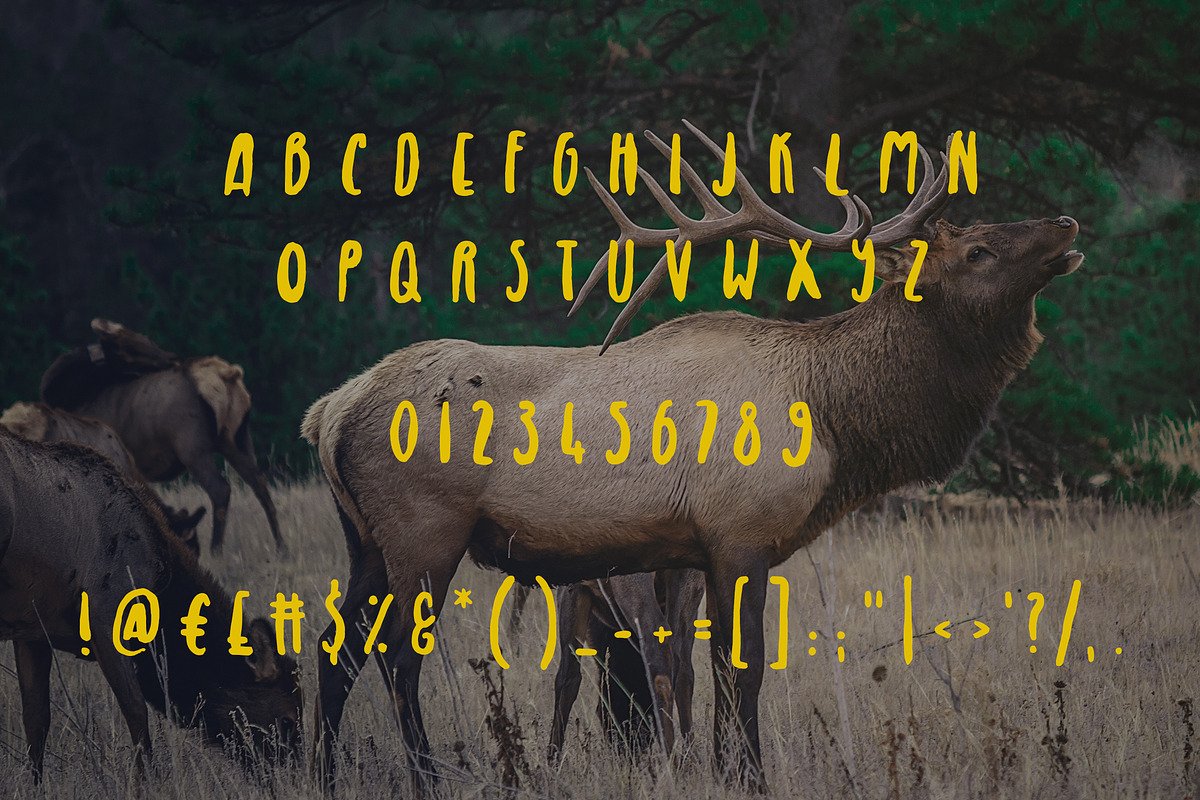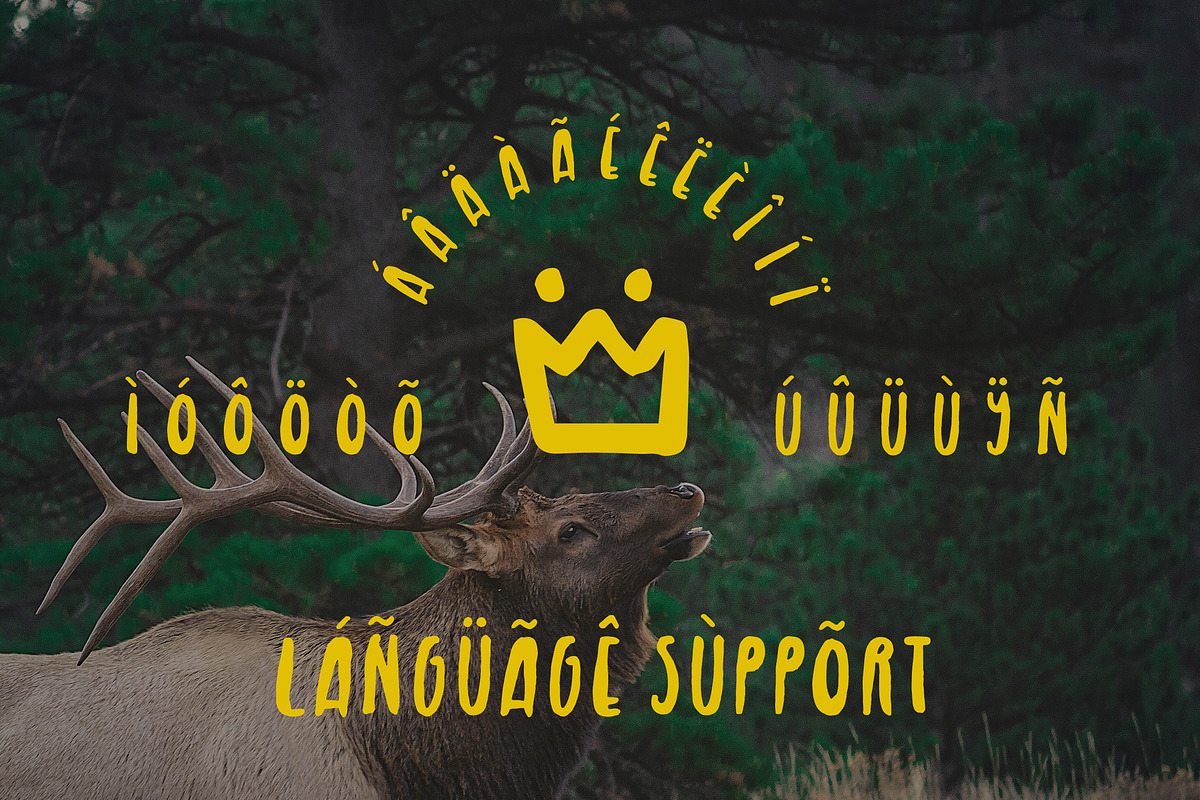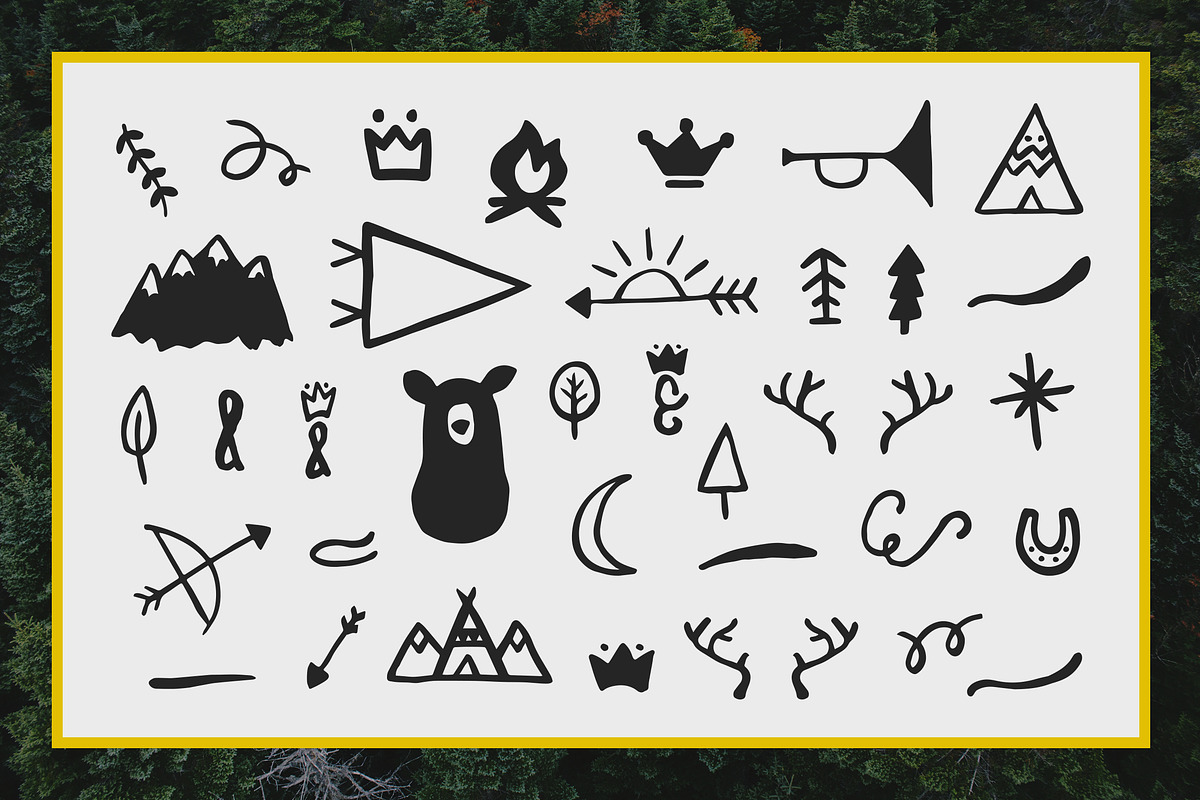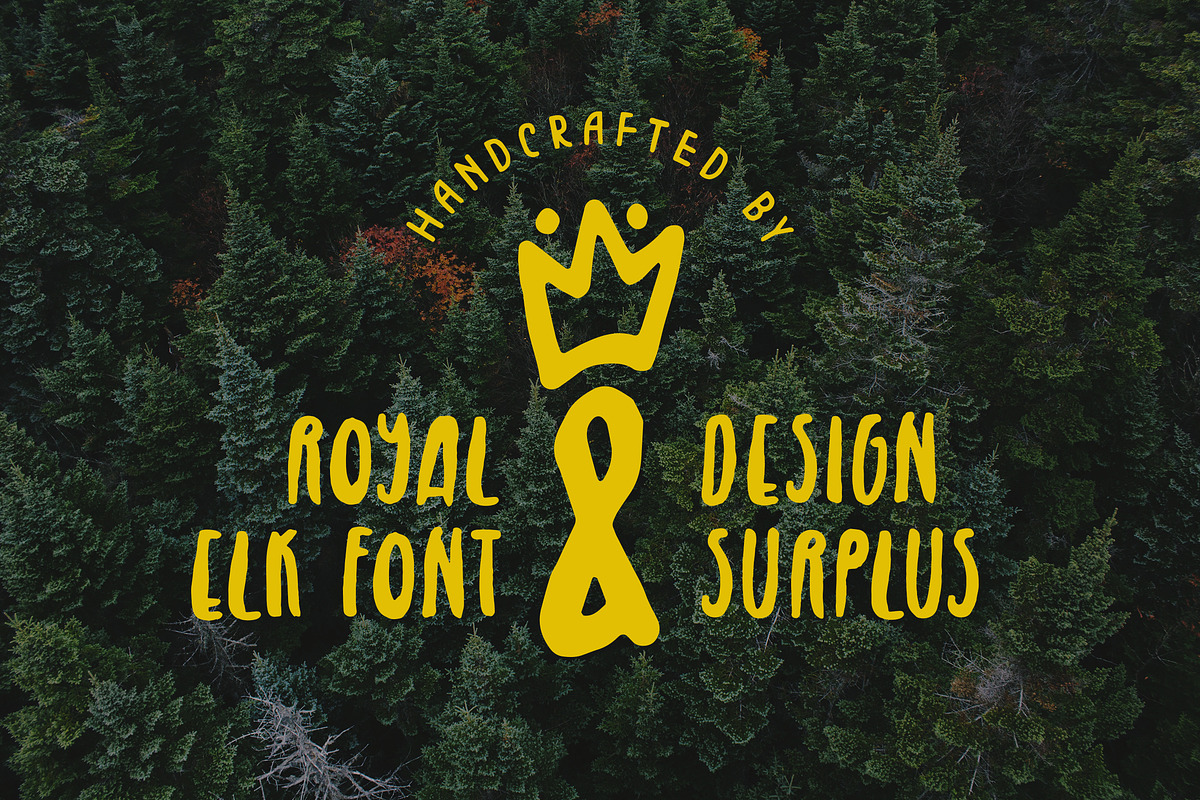
Royal Elk Font
Royal Elk Font by Design Surplus is a font selected for branding, posters, packaging, typography.
- Uppercase font
- 89 characters
- Language support
- Royal Elk Regular
Why Royal Elk Font is worth a look
Royal Elk Font by Design Surplus fits naturally into Branding, posters, packaging, typography.